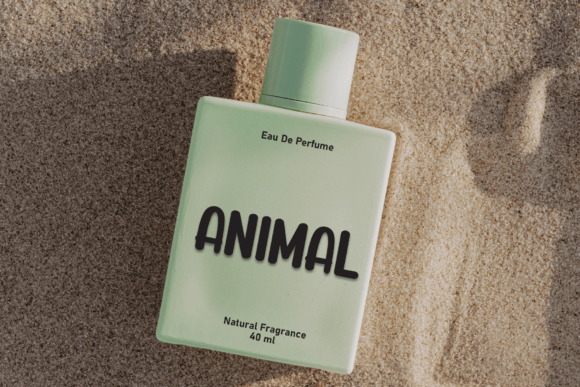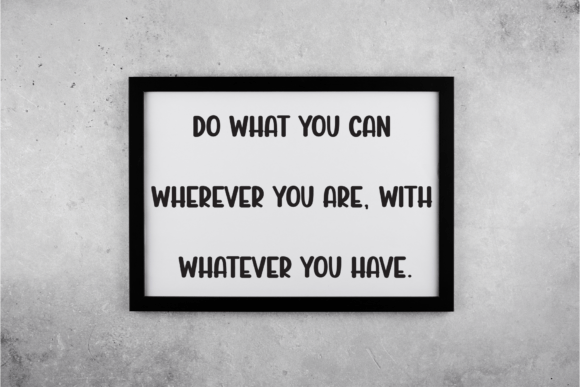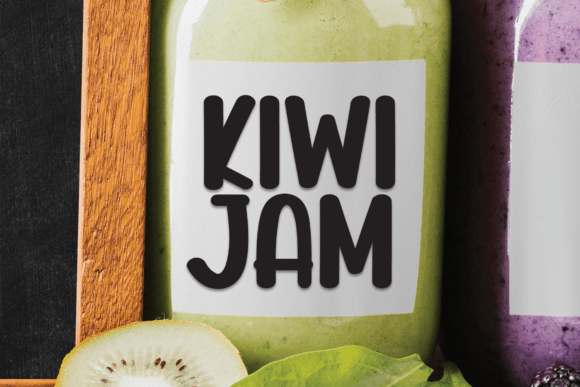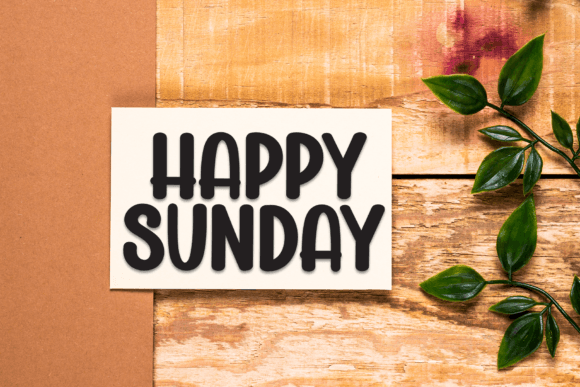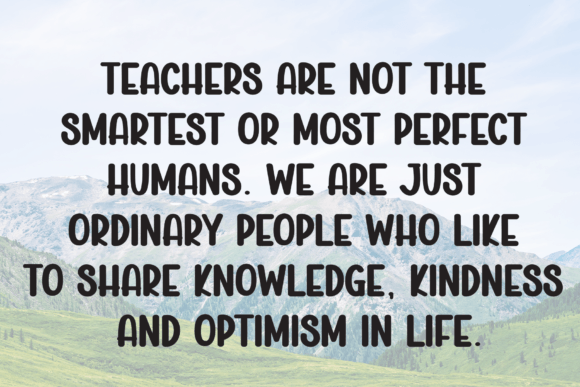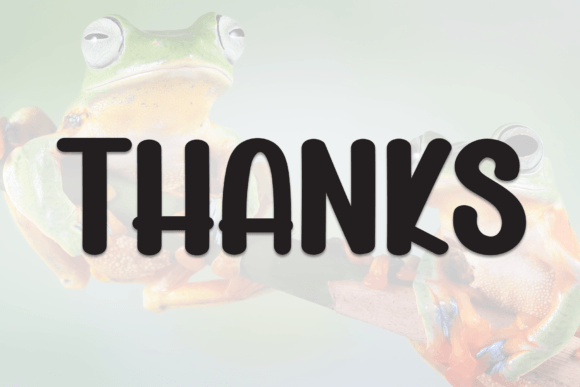
Introducing Animal Font: The Charming Handwritten Display Font
Are you looking for a font that can add a touch of friendliness and sweetness to your designs? Look no further than Animal Font, a charmingly delightful handwritten display font that’s perfect for designers and crafters seeking a playful touch. In this article, we’ll dive into the world of Animal Font, exploring its features, uses, and benefits, and why it’s an excellent choice for your next design project.
What is Animal Font?
Animal Font is a beautifully crafted handwritten display font that’s designed to bring a sense of fun and playfulness to your designs. With its charming and delightful lettering style, this font is sure to capture the attention of your audience and leave a lasting impression. Whether you’re designing wedding invitations, greeting cards, or any other type of project, Animal Font is the perfect choice.
Key Features of Animal Font
So, what makes Animal Font so special? Here are some of its key features:
- Handwritten style: Animal Font boasts a beautiful handwritten style that’s both elegant and playful.
- Charming lettering: Each letter is carefully crafted to bring a sense of friendliness and sweetness to your designs.
- Display font: Animal Font is designed as a display font, making it perfect for headlines, titles, and other attention-grabbing elements.
- Playful touch: This font adds a playful touch to any design, making it ideal for projects that require a bit of whimsy.
Uses of Animal Font
Animal Font is an incredibly versatile font that can be used in a variety of design projects. Here are some of the most popular uses for this charming font:
- Wedding invitations: Add a touch of romance and whimsy to your wedding invitations with Animal Font.
- Greeting cards: This font is perfect for designing greeting cards for birthdays, holidays, and other special occasions.
- Party decorations: Use Animal Font to create fun and playful party decorations, such as banners and garlands.
- Branding and packaging: This font can also be used in branding and packaging design to add a touch of personality to your products.
Benefits of Using Animal Font
So, why should you choose Animal Font for your next design project? Here are some of the benefits of using this charming font:
- Unique and eye-catching: Animal Font is a unique and eye-catching font that will help your designs stand out from the crowd.
- Easy to read: Despite its playful style, Animal Font is easy to read, making it perfect for use in a variety of design projects.
- Customizable: This font can be easily customized to fit your design needs, allowing you to adjust the size, color, and style to suit your project.
- Time-saving: With Animal Font, you can save time and effort in your design process, as this font can be used in a variety of projects without requiring extensive design work.
Tips for Using Animal Font
Here are some tips for using Animal Font in your design projects:
- Pair with other fonts: Animal Font pairs well with other fonts, so don’t be afraid to experiment with different font combinations.
- Use in moderation: While Animal Font is a beautiful font, it’s best used in moderation. Use it sparingly to add a touch of whimsy to your designs.
- Experiment with colors: Animal Font looks great in a variety of colors, so don’t be afraid to experiment with different color schemes.
In conclusion, Animal Font is a charmingly delightful handwritten display font that’s perfect for designers and crafters seeking a playful touch. With its unique and eye-catching style, this font is sure to add a touch of friendliness and sweetness to your designs. Whether you’re designing wedding invitations, greeting cards, or any other type of project, Animal Font is an excellent choice. So why not give it a try and see the magic for yourself?